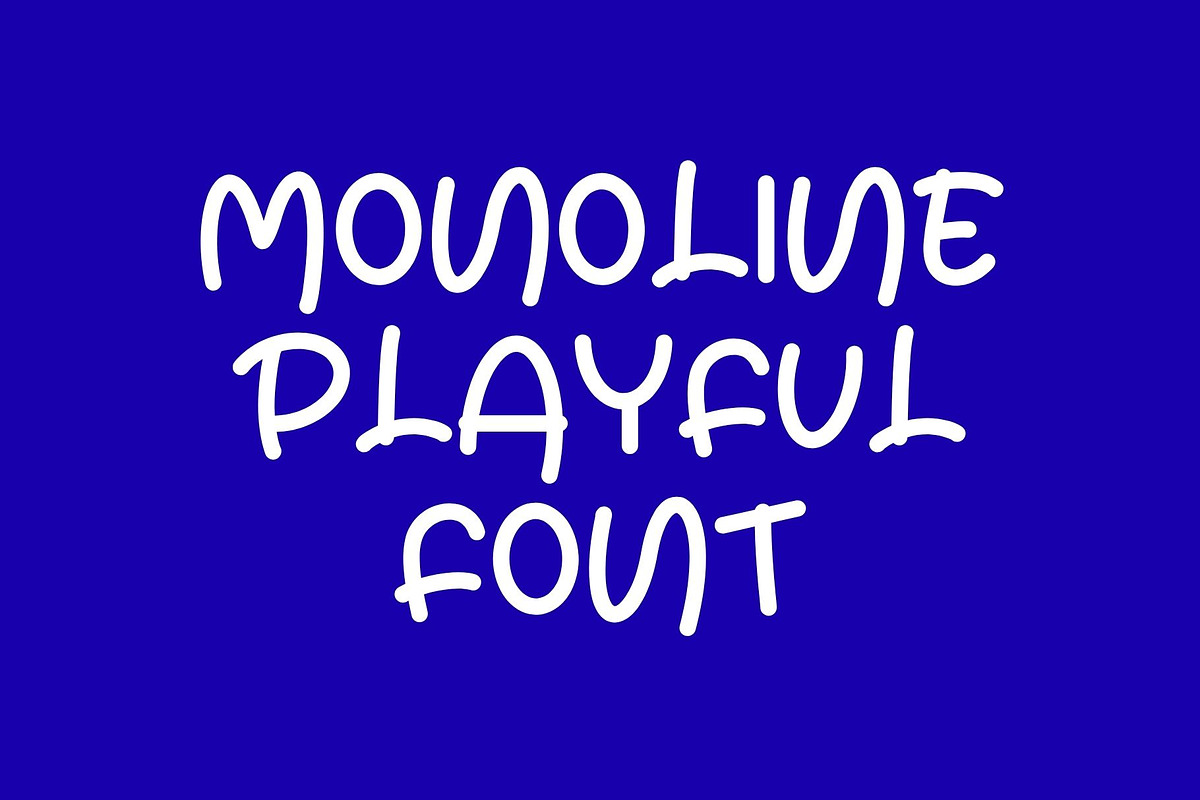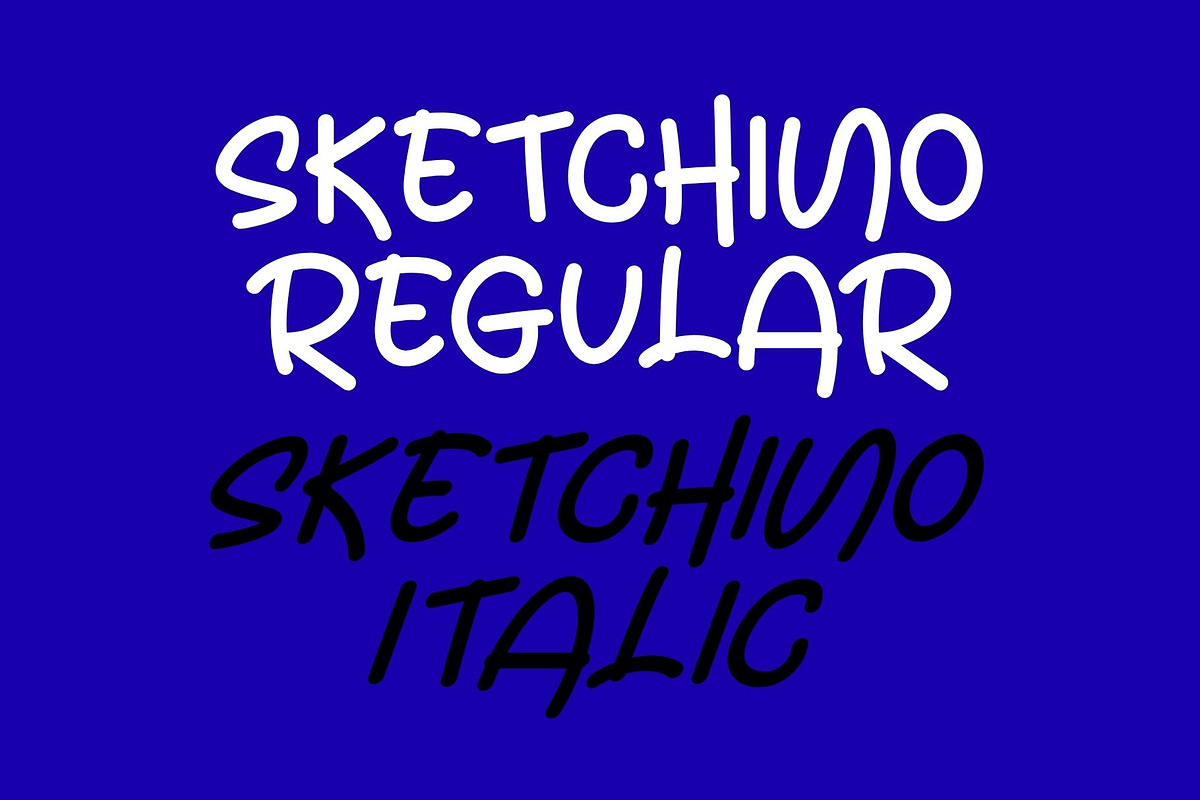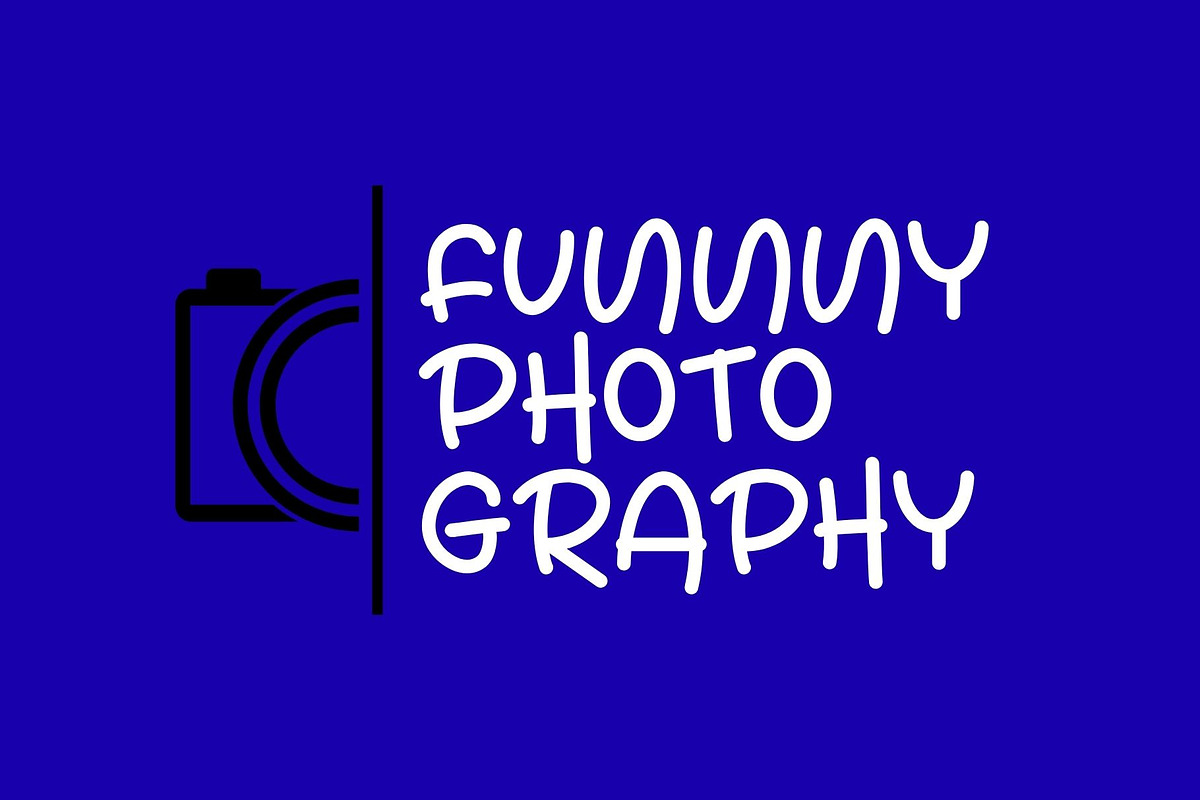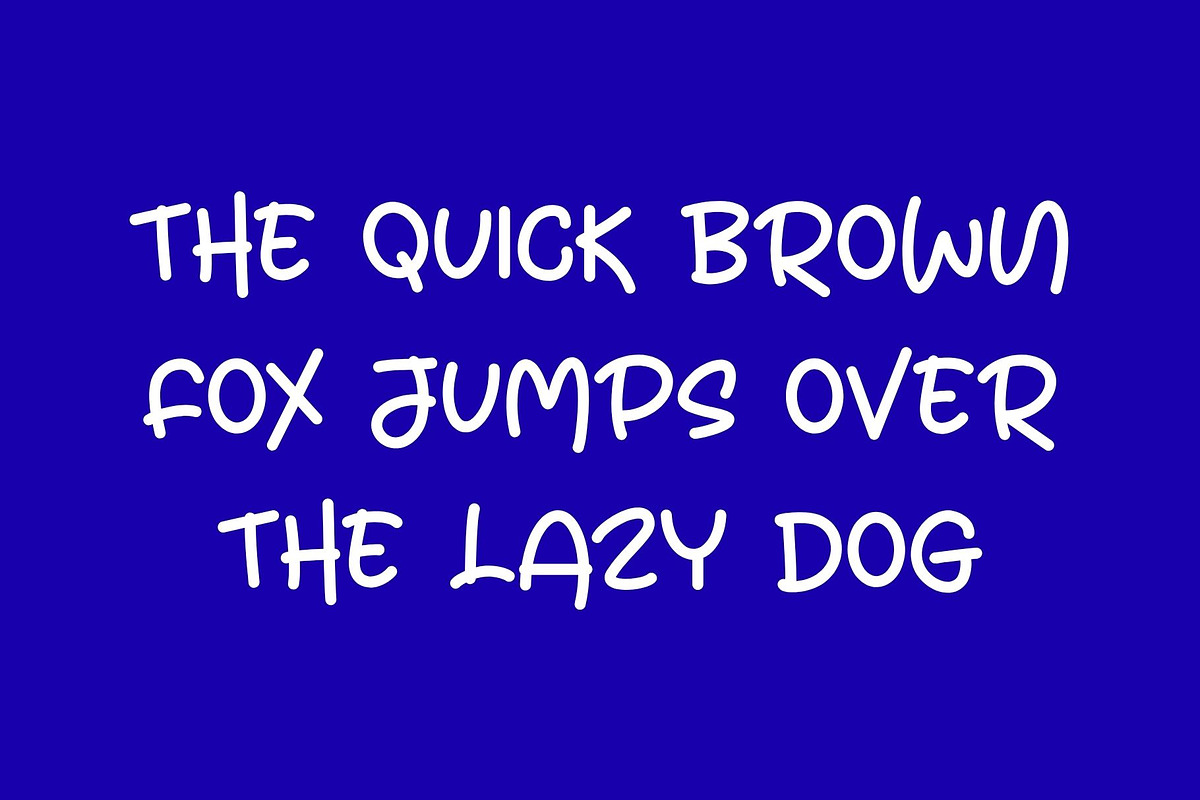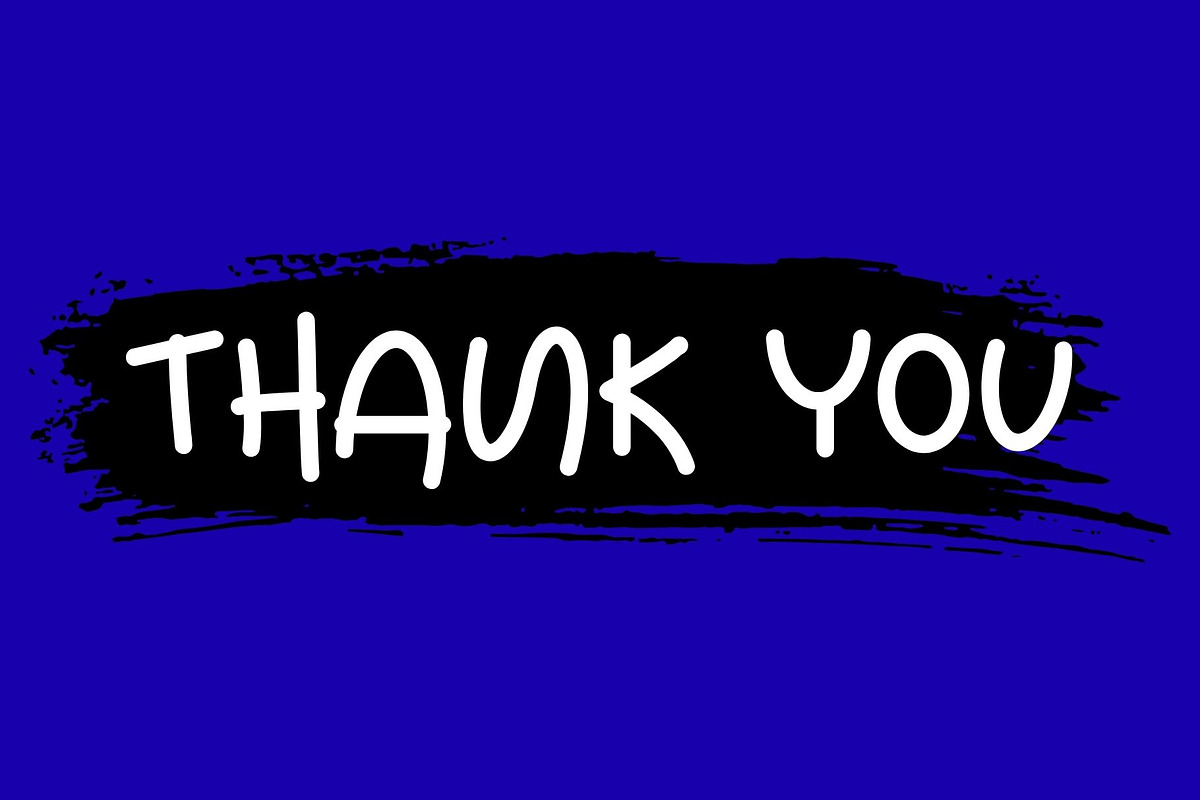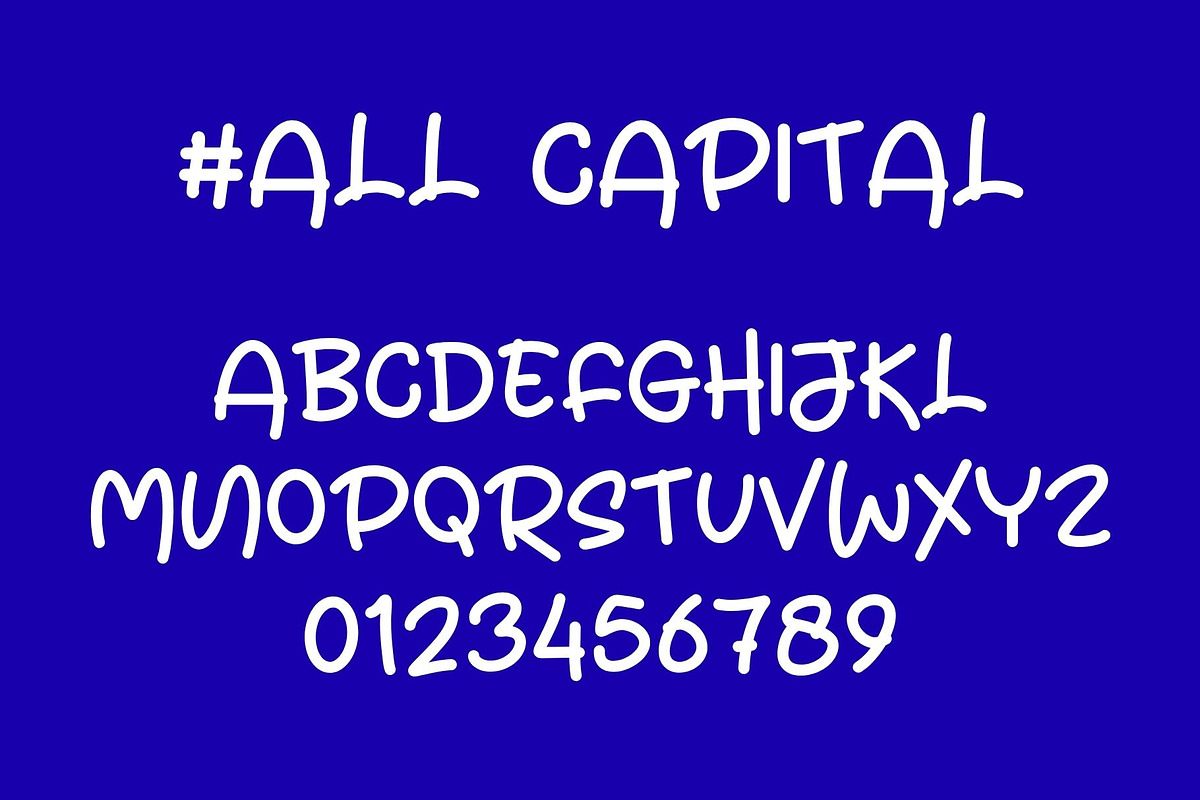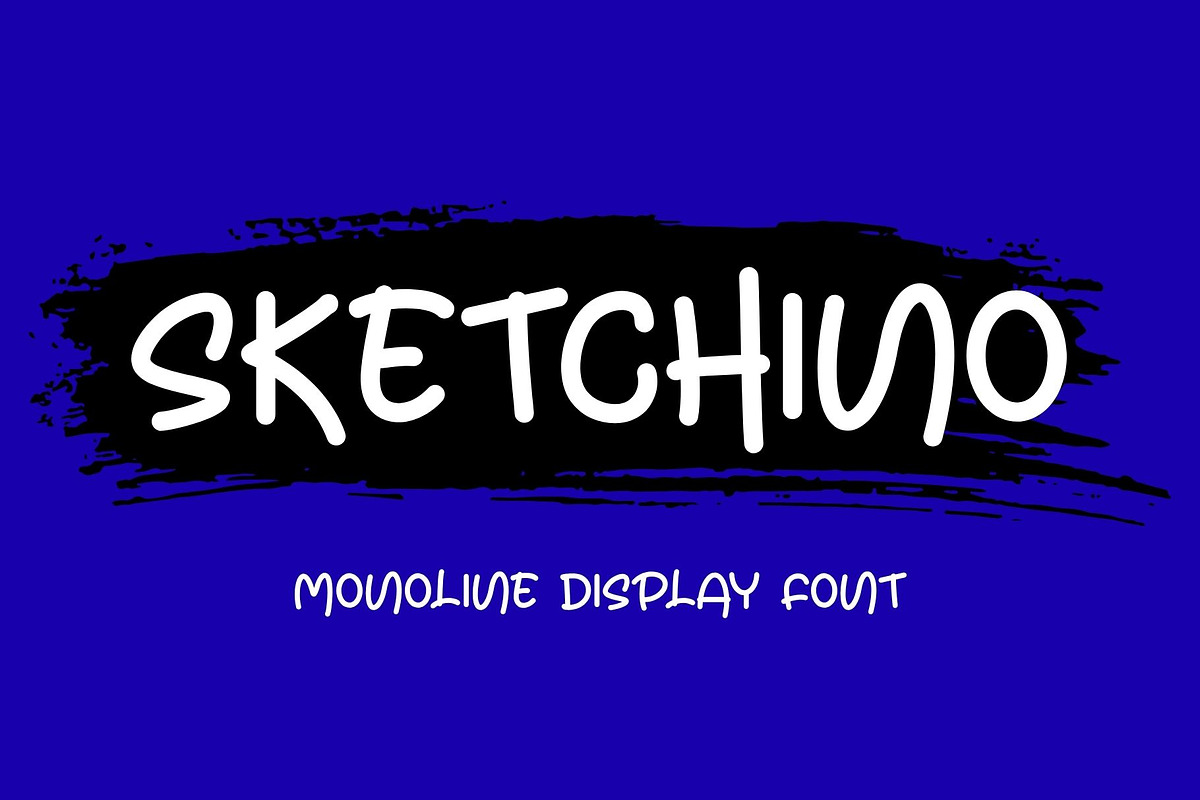
Sketchino
Sketchino is a playful monoline font with a hand-drawn sketch style that feels fun, casual, and full of personality. Its clean single-line strokes combined with slightly imperfect shapes create a natural, friendly, and artistic look.
Designed to bring a relaxed and creative vibe, Sketchino is perfect for projects that need a touch of charm without losing readability. Whether you're working on branding, social media content, posters, or kids-related designs, this font adds a unique and approachable feel.